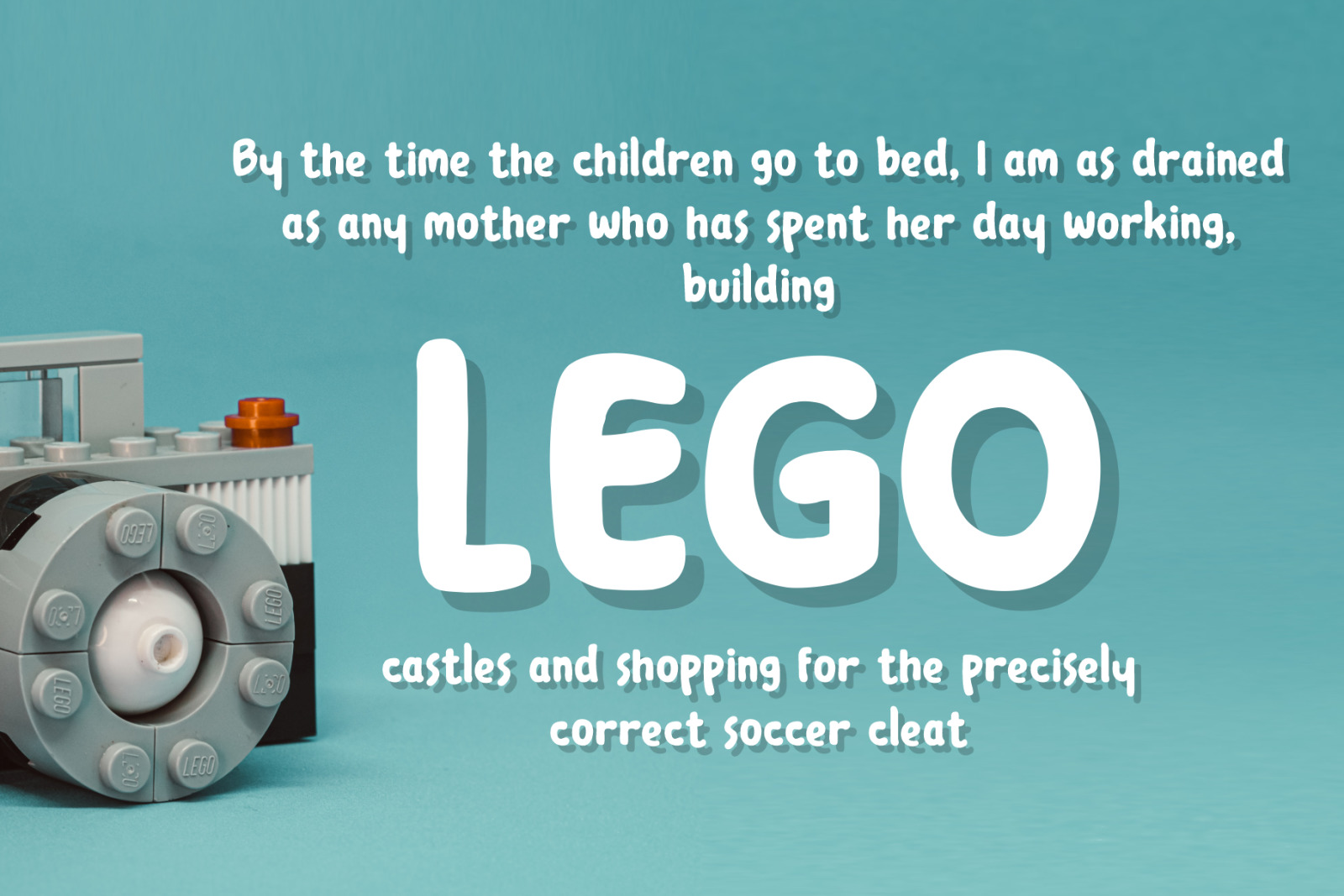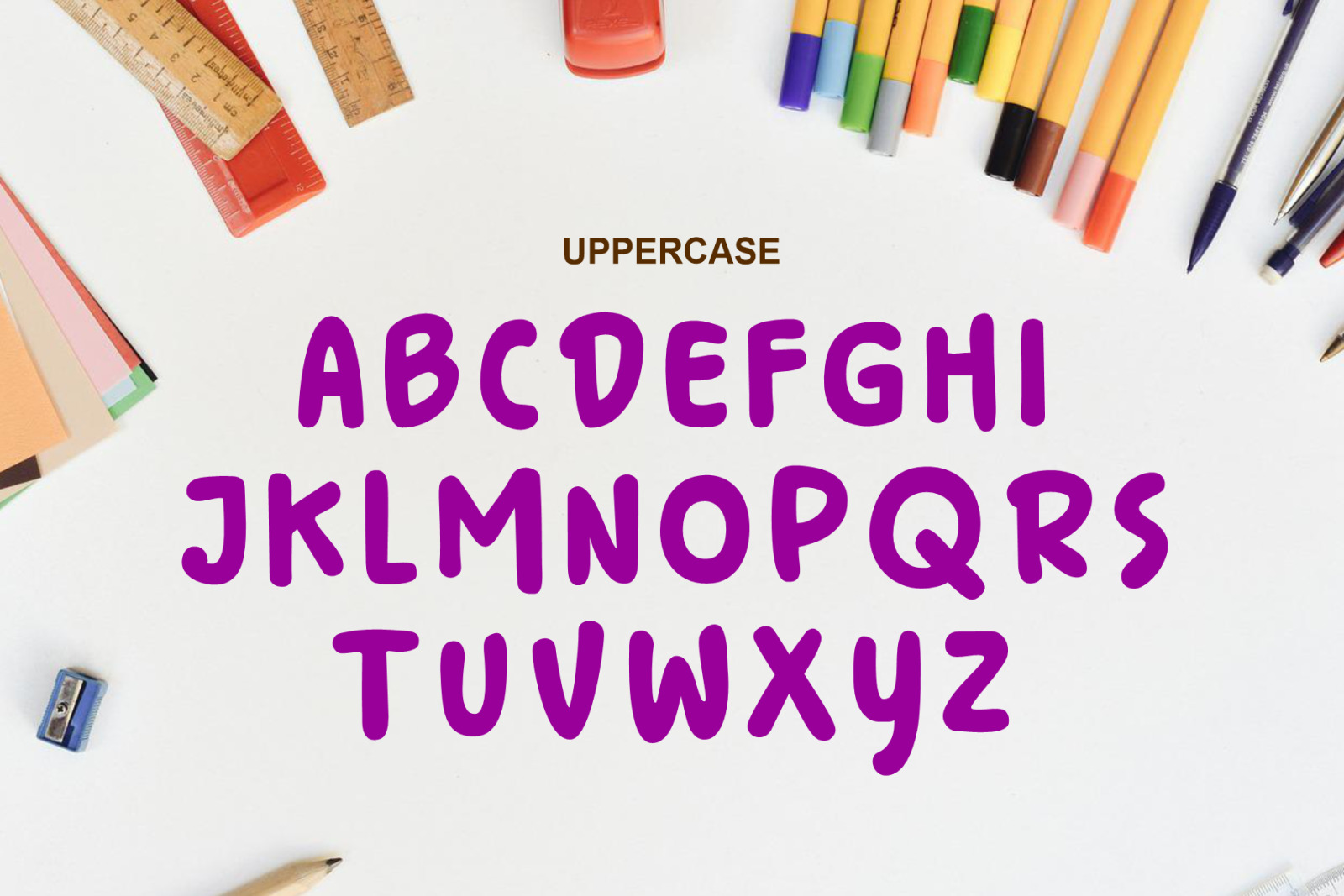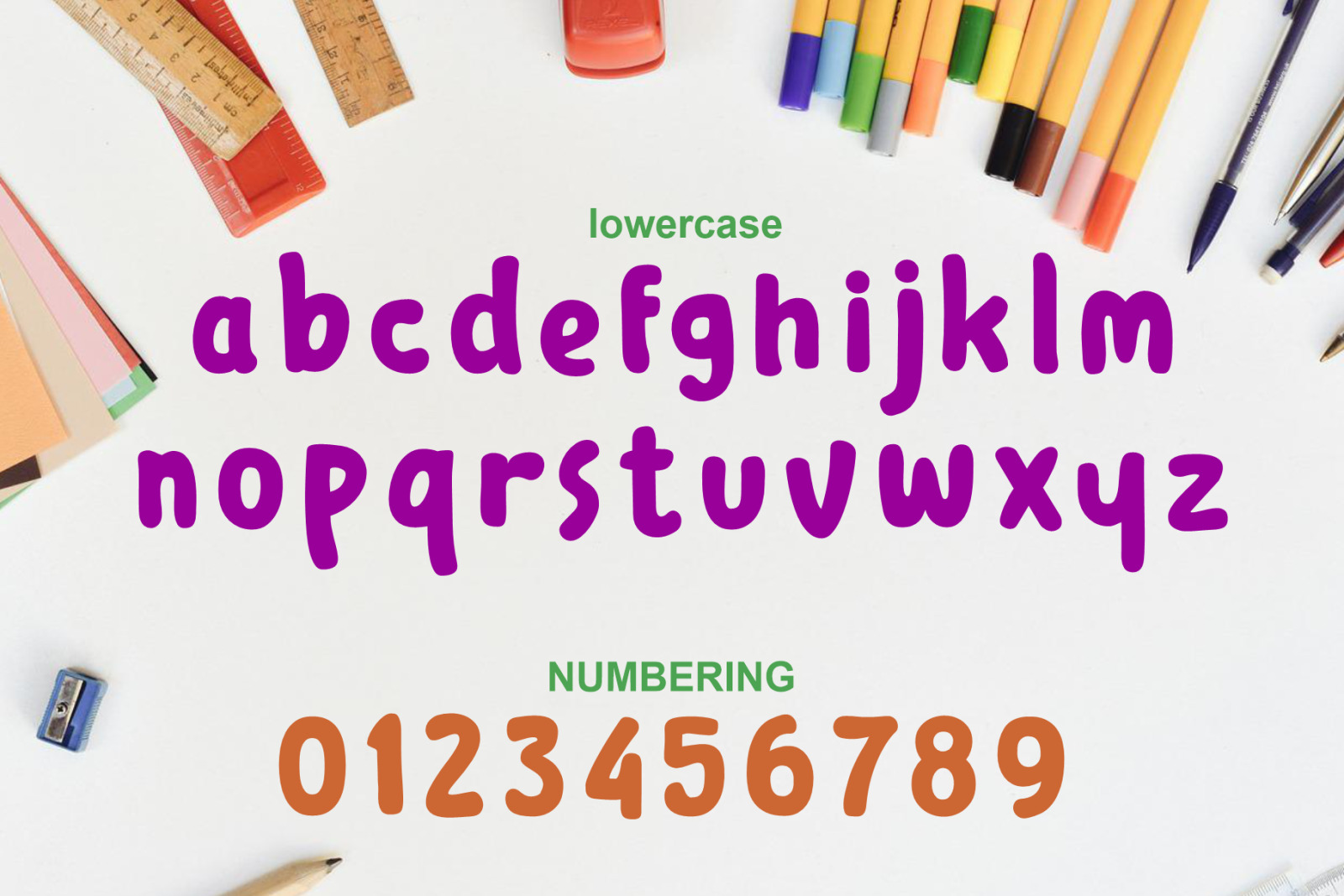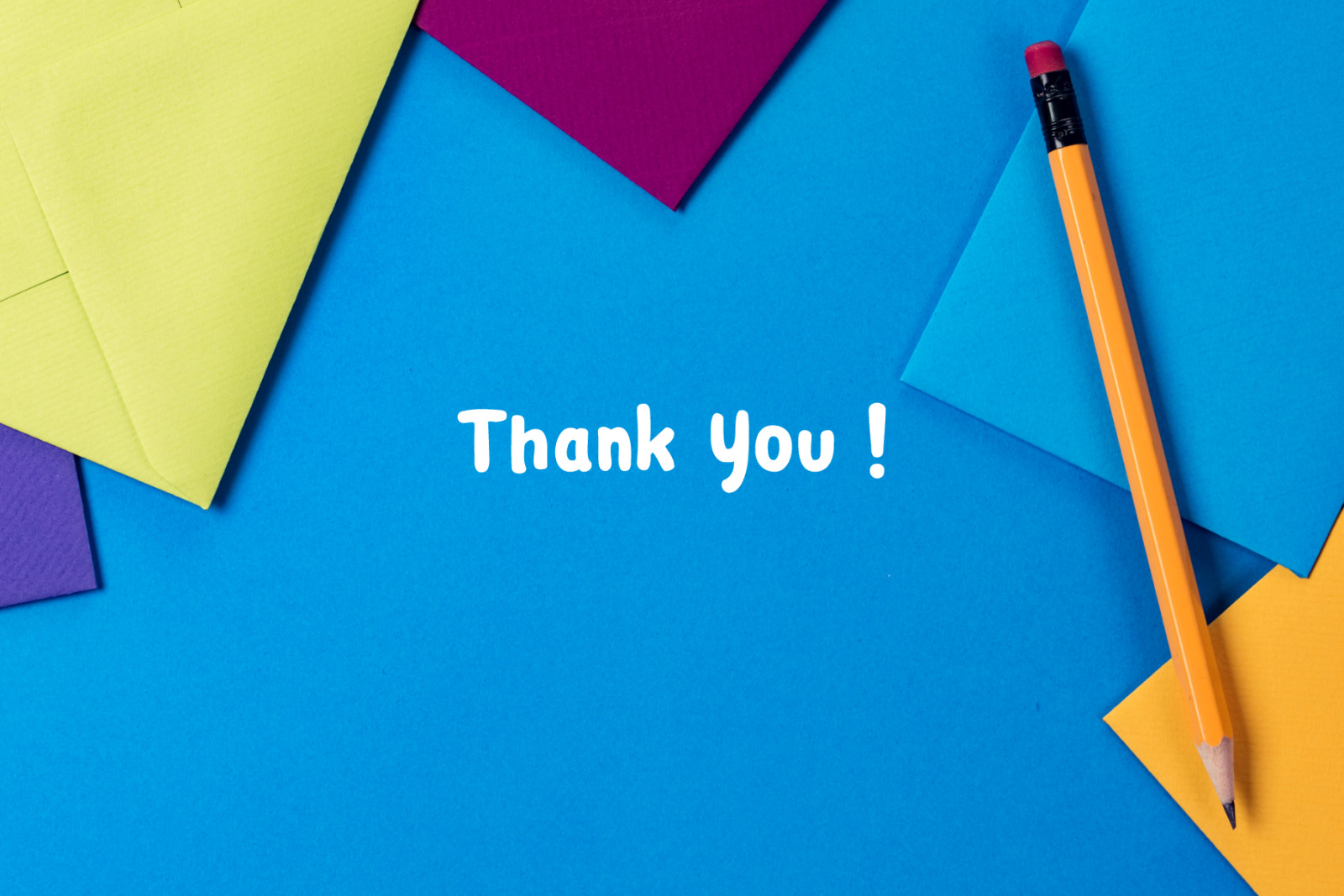
Desta Font
Desta is a sweet font, cool and quirky handwritten font. No matter the topic, this font will be an incredibly asset to your font’s library, as it has the potential to elevate any creation. Desta it’s a playful sans serif font with bold and cute style for your project include uppercase & lowercase and Multilingual support really perfect for branding project like Logo, comic text, Book cover for children, social media post, T-shirt quotes, stationary, and handwriting comic style.
– Complete characters uppercase, lowercase, numeral, and punctuations